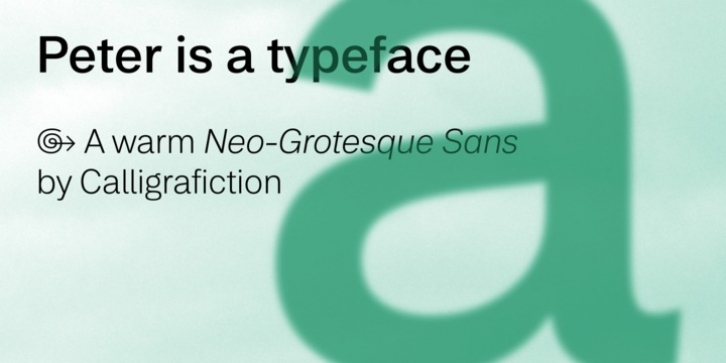
Publisher: Calligrafiction
While working on his master thesis designer Philip Lammert was thinking of a logotype for his type foundry Calligrafiction. He thought that the most obvious and boring graphic illustrating the name would be a brush lettering. So he started sketching a static sans-serif between Helvetica® and Arial®, soon adding slight references to the calligraphic origin of type. The rough logo idea of the beginning ended up becoming a type family of 16 fonts with each 600 glyphs.
Peter is a Neo-Grotesque Sans with rational and clear basic letterforms, while in its details it unfolds distinct attributes of humanist type traditions. Combining these characteristics it works perfectly side by side with transitional serif typefaces. As a grotesque it claims a very common design, yet offering the warmth of humanist drafts. Thus the child needed a very common name: Peter.